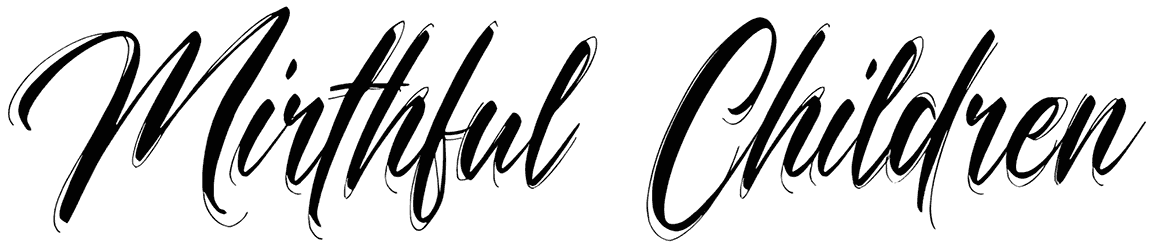
Mirthful Children Font
The ironic look and playful undertones make it perfect for creative projects like branding, card design, flyers, posters, and so on. Mirthful Children, the calligraphy font, can make your designs look better and keep the…
The ironic look and playful undertones make it perfect for creative projects like branding, card design, flyers, posters, and so on. Mirthful Children, the calligraphy font, can make your designs look better and keep them from getting boring. If you use this script font in your design, you can take charge and change the game. Our stock hosts several beautiful calligraphy and script fonts.